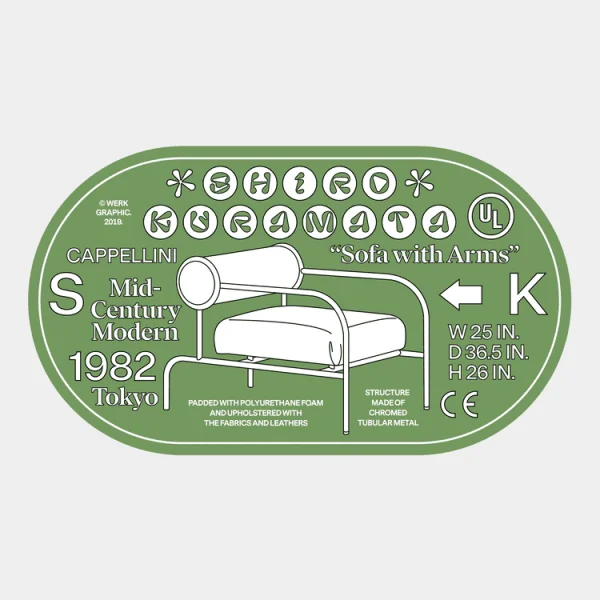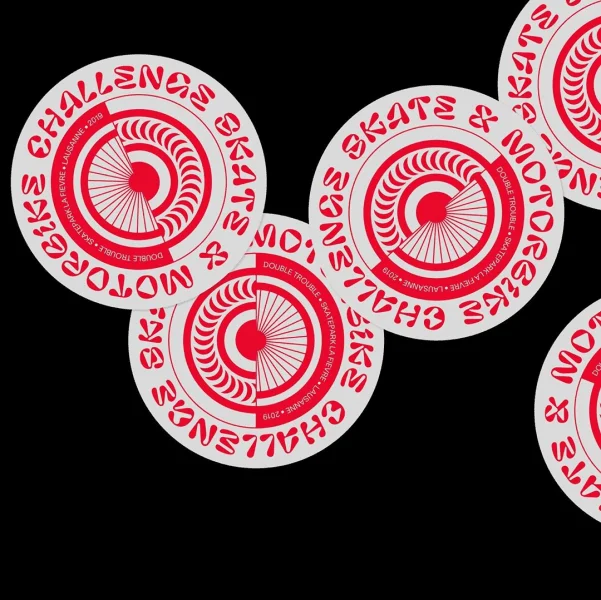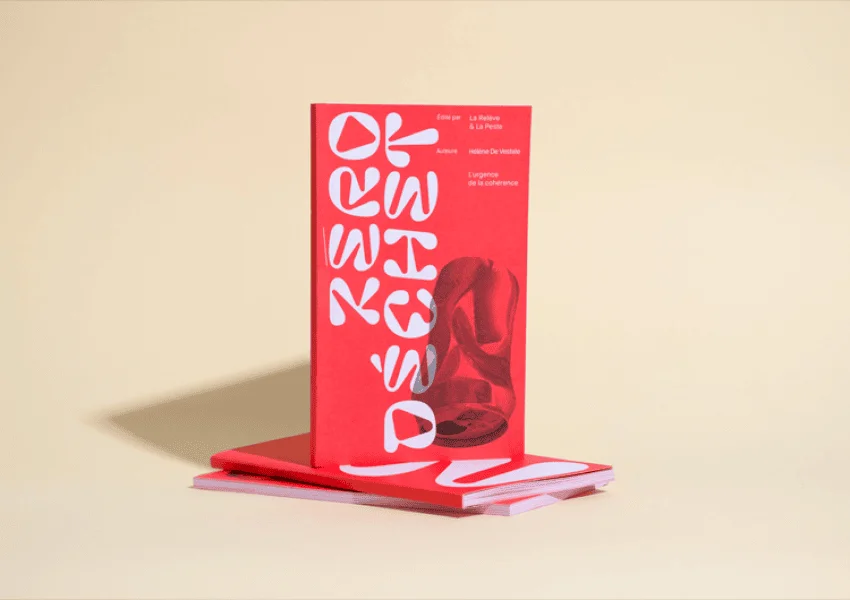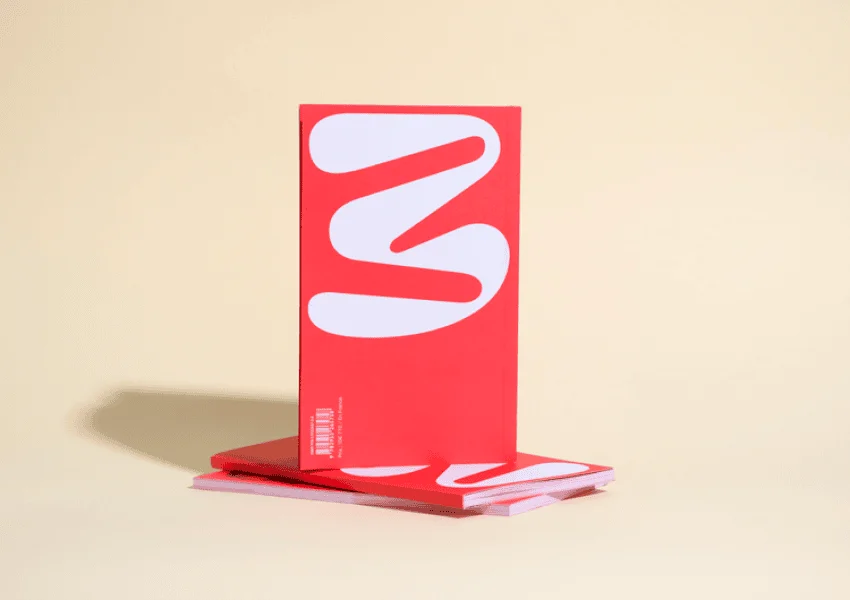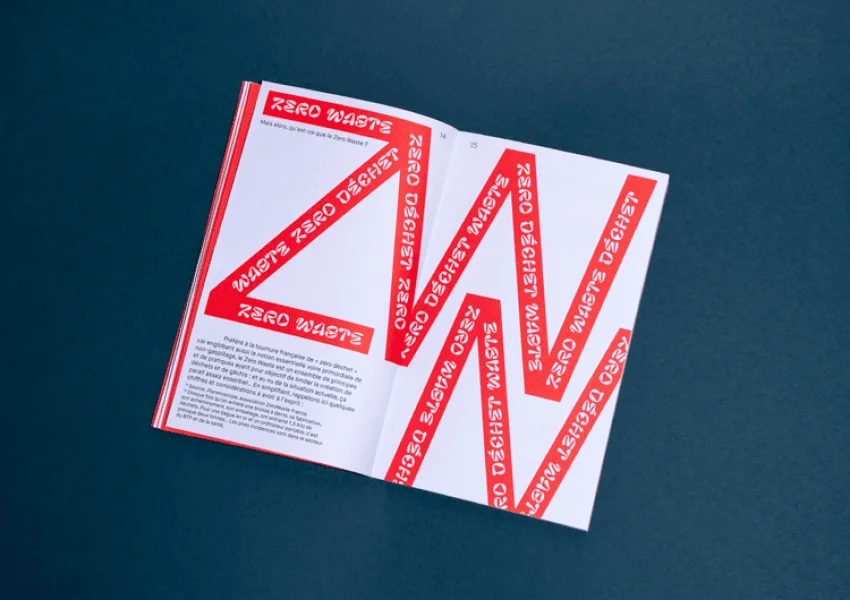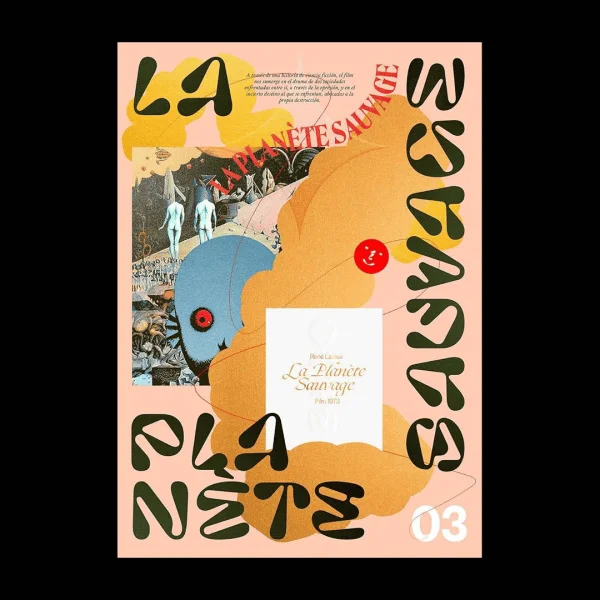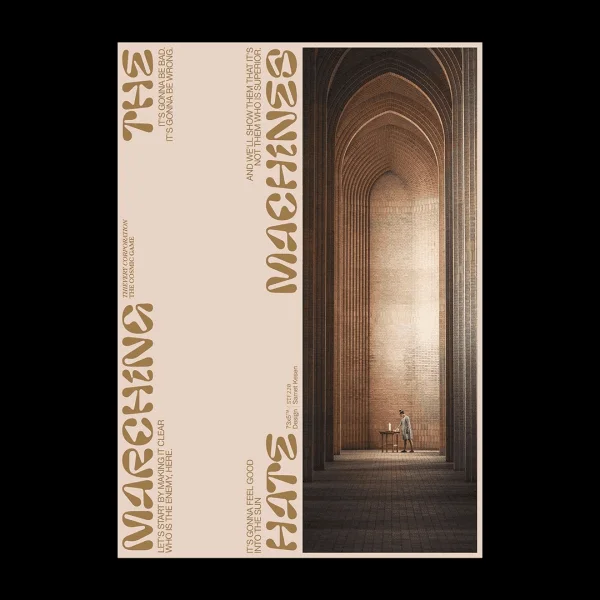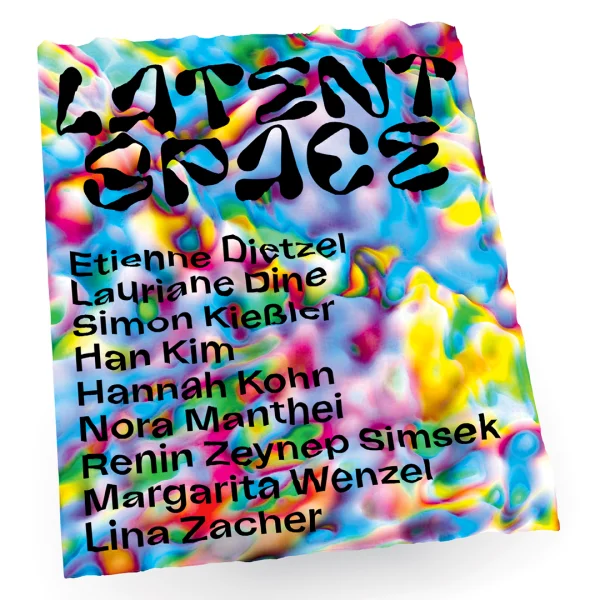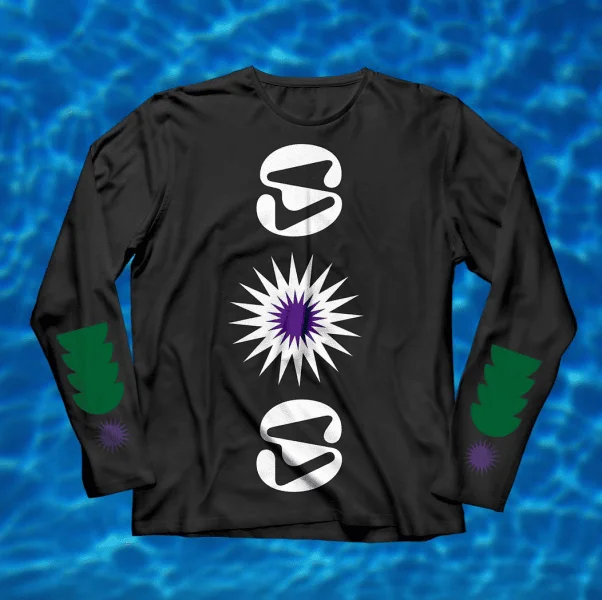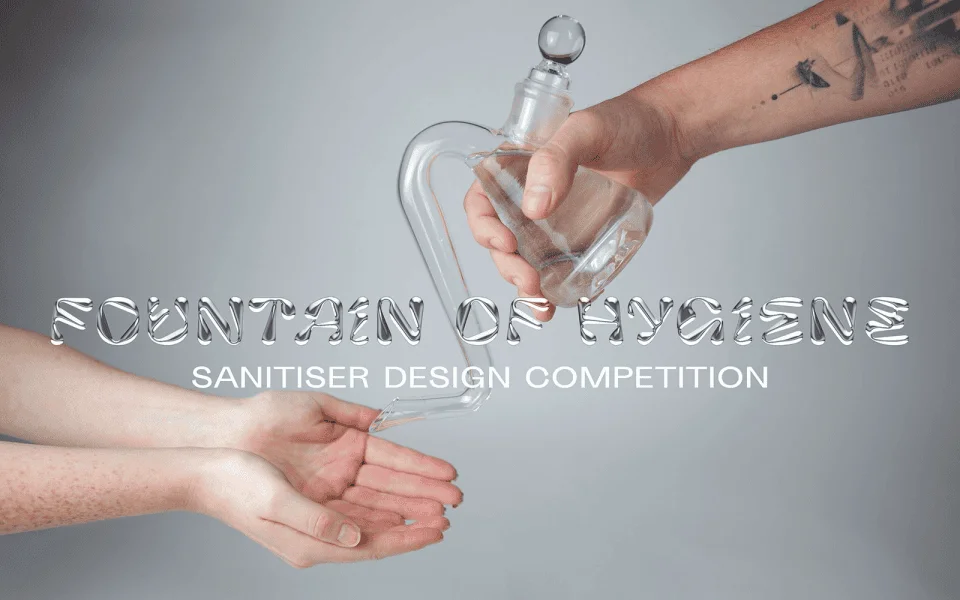
Pilowlava (sic) was born as an intuitive, fast-paced creative feedback loop in which its creators tried to surprise one another. The result is a typeface that recalls cooled lava flows drawn with a compass. Striving to please both of its parents, Pilowlava seeks a balance between viscous energy and controlled geometry. This geometric approach lies on the shoulders of researches conducted by Swiss designer Armin Hofmann in his Graphic Design Manual edited in 1965. The structures of its glyphs are mostly derived from hand-written dynamics, that feed from both calligraphic and graffiti references. All these sweet inconsistencies produce a vacillating, fluctuating typographic colour, embodied by the almost-mathematical tension of its curves. Under a hardened crust, Pilowlava awaits the smallest temperature rise to recover its viscosity. The alternate shapes of certain letters play out these thermic accidents and raise the temperature of the text.
It takes its name from lava pillows, a natural phenomenon that is produced when lava is expelled by an underwater volcano, or when the lava flows of an emerged volcano encounter a body of water. In contact with the water, the lava flow is so hot that it's coated in a glass film. As it isn't totally cooled down, it transforms into smooth pillows that continue to slowly grow. This way, lava creates tubes and viscous balls that pile up and shape one another, and then they aggregate in puffy clusters that can measure several meters.
On December 2020, we released a fork of Pilowlava by Vincent Wagner where most glyphs have been modelled in 3D to be used in 3D environments. Get more details and download these mesh files here.
Maksym Kobuzan drew the beautiful and sensible Cyrillic version which was added in March 2022.
In 2024, Anton Moglia introduced "Pilowlava Atome", a custom version with interior perforations in the letters to imitate climbing holds, developed for the climbing gym Atome in Annecy. The idea for this version came from a poster designed by graphic designer Gabriel Robert.